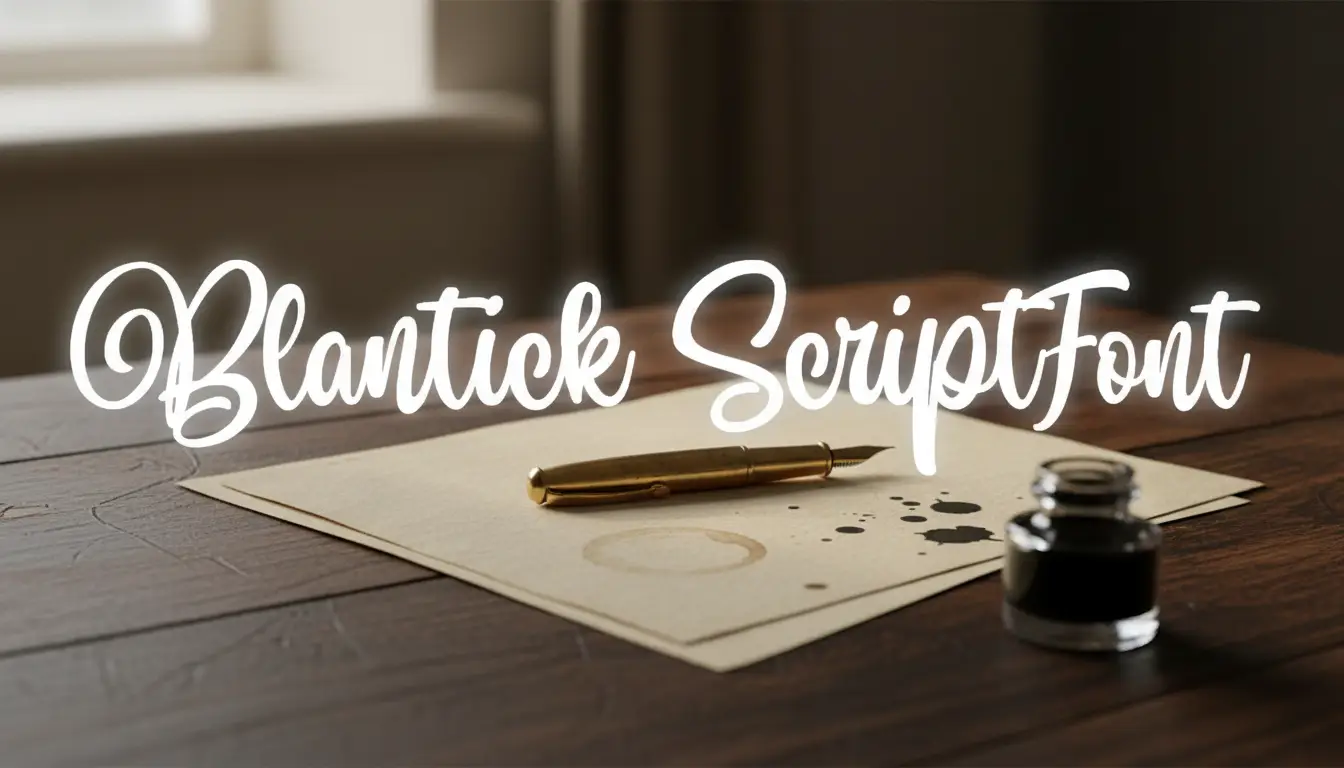
Blantick Script Font
Blantick Script
Blantick Script is a fancy font made by Ardian Nuvianto. Bold and full of character, it's built to stand out rather than blend in. You can download it for free and test it with your own words in the preview above.
What You Can Type With Blantick Script
You get every letter from A to Z in both cases and all the numbers from 0 to 9, which means Blantick Script can handle full sentences, dates and prices. Everyday marks like &, !, ? and @ are there too. Thanks to its accented letters, it also works for Spanish, French, German, Portuguese and Italian, not just English.
Where Blantick Script Works Best
Think of Blantick Script for posters, logos and eye-catching headlines. Use it for one standout word or headline and let simpler fonts handle the rest.
Does Blantick Script support accented letters?
Yes. Blantick Script includes the accented letters needed for Spanish, French, German, Portuguese and Italian, so it works for more than just English.